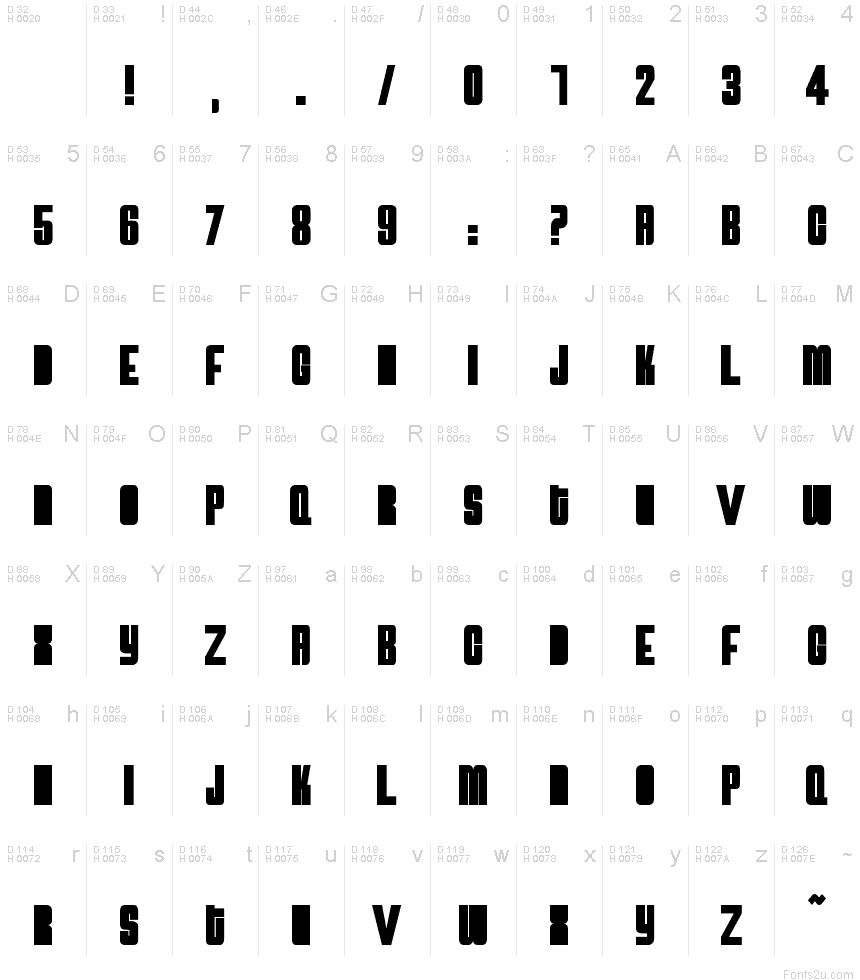
AtomicBomb
AtomicBomb font by David M. Debus is a free retro display typeface with tall, ultra-condensed letters that slam your message into tight spaces without losing impact. Its rigid vertical strokes, squared corners, and narrow gaps create a monolithic, sci‑fi feel—like glowing text stenciled on old arcade cabinets or Cold War control panels. Set large, with a bit of breathing room around it, and AtomicBomb turns even a single word into a bold graphic object.
Using AtomicBomb, long headlines and names suddenly fit on crowded posters, narrow banners, spine titles, and splash screens without needing awkward line breaks. This free font shines on gig posters, game logos, techno album covers, YouTube thumbnails, zine titles, and retro-futuristic event branding. Pair its blocky energy with a simple, unobtrusive sans for body copy to keep layouts legible while AtomicBomb does the heavy visual lifting.